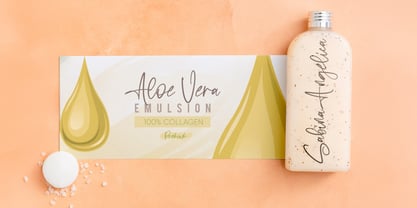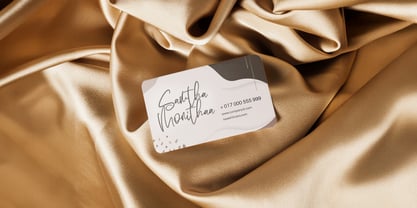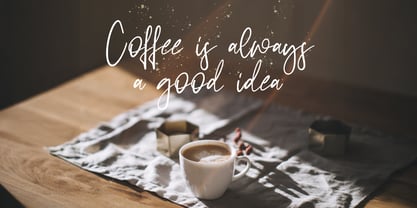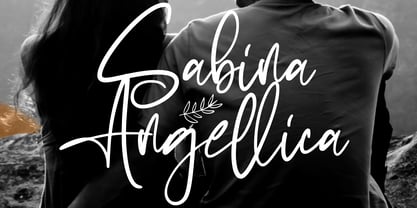
Sabina Angellica
by Stringlabs Creative Studio
The Sabina Angellica Font Family was designed by Virgiawan Listanto and published by Stringlabs Creative Studio. Sabina Angellica contains 1 styles. More about this family
Sabina Angellica is beautifully crafted modern script font that blends elegance and sophistication with a contemporary touch. Designed with smooth curves and flowing lines, this font is perfect for projects that need a touch of grace and charm.
Designers: Virgiawan Listanto
Foundry: Stringlabs Creative Studio